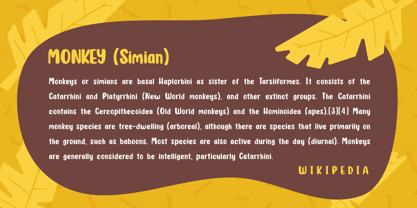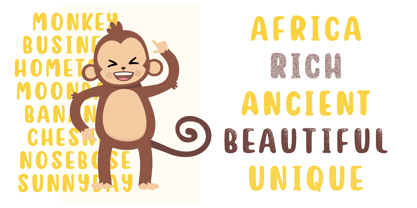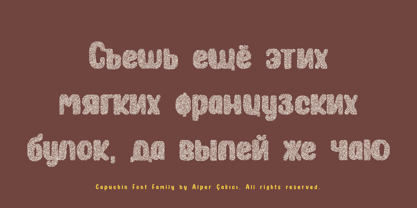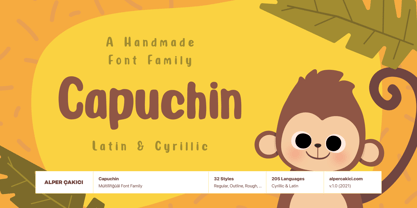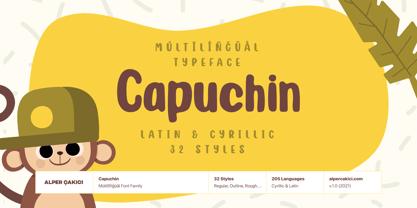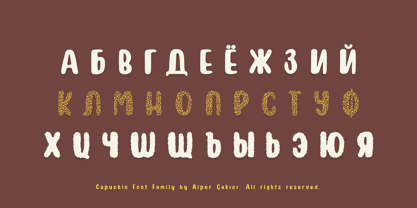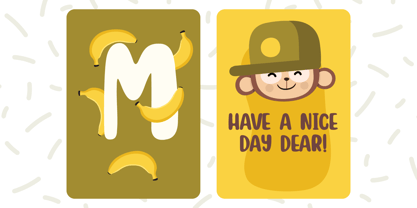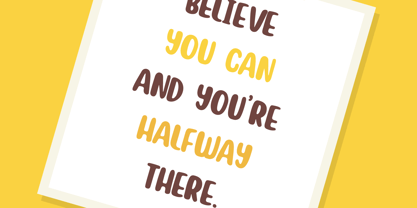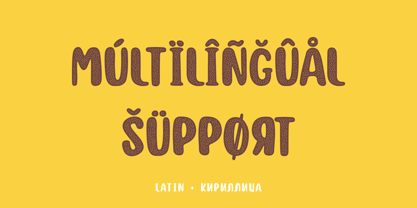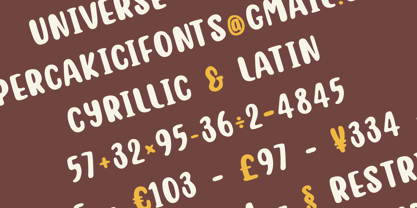
Capuchin
The Capuchin Font Family was designed by Alper Çakıcı and published by AlperCakici. Capuchin contains 32 styles and family package options.
Capuchin is a modern, versatile font with excellent kerning, making it ideal for both digital and print use. It features full support for the Cyrillic language, allowing for seamless multilingual communication. Capuchin's unique design combines classic proportions with a contemporary feel, making it stand out from other same categories fonts.
It supports 91 Languages: Belarusian, Russian, Afrikaans, Albanian, Asu, Basque, Bemba, Bena, Breton, Catalan, Chiga, Colognian, Cornish, Croatian, Czech, Danish, Dutch, Embu, English, Esperanto, Estonian, Faroese, Filipino, Finnish, French, Friulian, Galician, German, Gusii, Hungarian, Indonesian, Irish, Italian, Kabuverdianu, Kalenjin, Kamba, Kikuyu, Kinyarwanda, Latvian, Lithuanian, Lower Sorbian, Luo, Luxembourgish, Luyia, Machame, Makhuwa-Meetto, Makonde, Malagasy, Maltese, Manx, Meru, Morisyen, North Ndebele, Norwegian Bokmål, Norwegian Nynorsk, Nyankole, Oromo, Polish, Portuguese, Quechua, Romanian, Romansh, Rombo, Rundi, Rwa, Samburu, Sango, Sangu, Scottish Gaelic, Sena, Serbian, Shambala, Shona, Slovak, Soga, Somali, Spanish, Swahili, Swedish, Swiss German, Taita, Teso, Turkish, Upper Sorbian, Uzbek (Latin), Volapük, Vunjo, Walser, Welsh, Western Frisian, Zulu